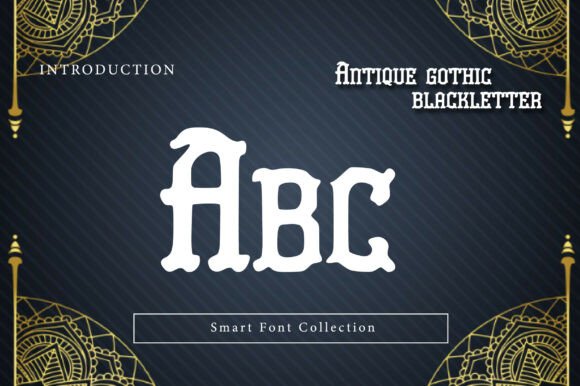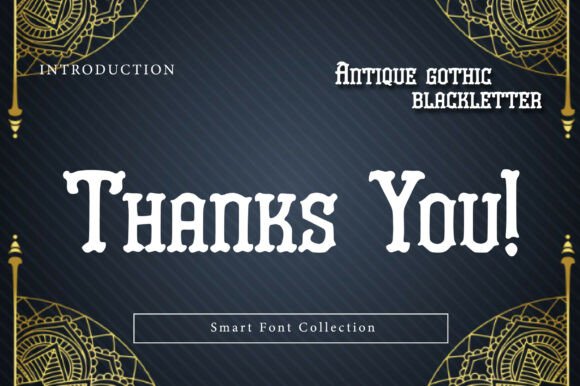
Unleashing the Power of Antique Gothic Font: A Timeless Typeface for Dramatic Designs
In the realm of typography, few fonts evoke the sense of mystery, drama, and history as effectively as the Antique Gothic Font. This bold and decorative display typeface is an exquisite blend of medieval manuscript lettering and classic Old English typography, making it a perfect choice for designers and crafters seeking to infuse their projects with a vintage, gothic, or traditional aesthetic.
The Inspiration Behind Antique Gothic Blackletter
Antique Gothic Blackletter, the specific variant of the Antique Gothic Font, draws its inspiration from the ornate and intricate lettering found in medieval manuscripts. The font’s design is characterized by sharp, angular strokes that convey a sense of strength and resilience. Its strong vertical rhythm and ornate details further enhance its dramatic presence, making it an ideal choice for designs that require a powerful and authoritative voice.
Key Features of Antique Gothic Font
The Antique Gothic Font boasts several key features that make it a versatile and effective typeface for a wide range of design applications. Some of its most notable features include:
- Sharp, Angular Strokes: The font’s sharp, angular strokes give it a bold and dramatic appearance, perfect for designs that require a strong visual impact.
- Strong Vertical Rhythm: The font’s strong vertical rhythm creates a sense of stability and authority, making it ideal for designs that require a sense of tradition and heritage.
- Ornate Details: The font’s ornate details, such as intricate flourishes and decorative elements, add a touch of elegance and sophistication to any design.
Design Applications for Antique Gothic Font
The Antique Gothic Font is an incredibly versatile typeface that can be used in a wide range of design applications. Some of the most popular uses for this font include:
- Logos: The font’s bold and dramatic appearance makes it perfect for logos that require a strong visual impact.
- Headlines: The font’s strong vertical rhythm and ornate details make it ideal for headlines that require a sense of tradition and authority.
- Posters: The font’s bold and decorative appearance makes it perfect for posters that require a sense of drama and spectacle.
- Album Covers: The font’s vintage and gothic aesthetic makes it ideal for album covers that require a sense of mystery and intrigue.
- Branding: The font’s strong and authoritative voice makes it perfect for branding applications that require a sense of tradition and heritage.
Tips for Using Antique Gothic Font Effectively
To get the most out of the Antique Gothic Font, here are a few tips to keep in mind:
- Use it Sparingly: Due to its bold and dramatic appearance, it’s best to use the Antique Gothic Font sparingly to avoid overwhelming the viewer.
- Pair it with Simple Fonts: Pairing the Antique Gothic Font with simpler fonts can help to create a sense of contrast and visual interest.
- Experiment with Colors: The font’s ornate details and sharp strokes look stunning in a variety of colors, so don’t be afraid to experiment and find the perfect hue for your design.
The Antique Gothic Font is a timeless typeface that offers a unique blend of medieval charm and classic elegance. Its bold and dramatic appearance, combined with its versatility and effectiveness, make it a perfect choice for designers and crafters seeking to infuse their projects with a vintage, gothic, or traditional aesthetic. Whether you’re creating a logo, headline, poster, album cover, or branding materials, the Antique Gothic Font is sure to make a lasting impression.